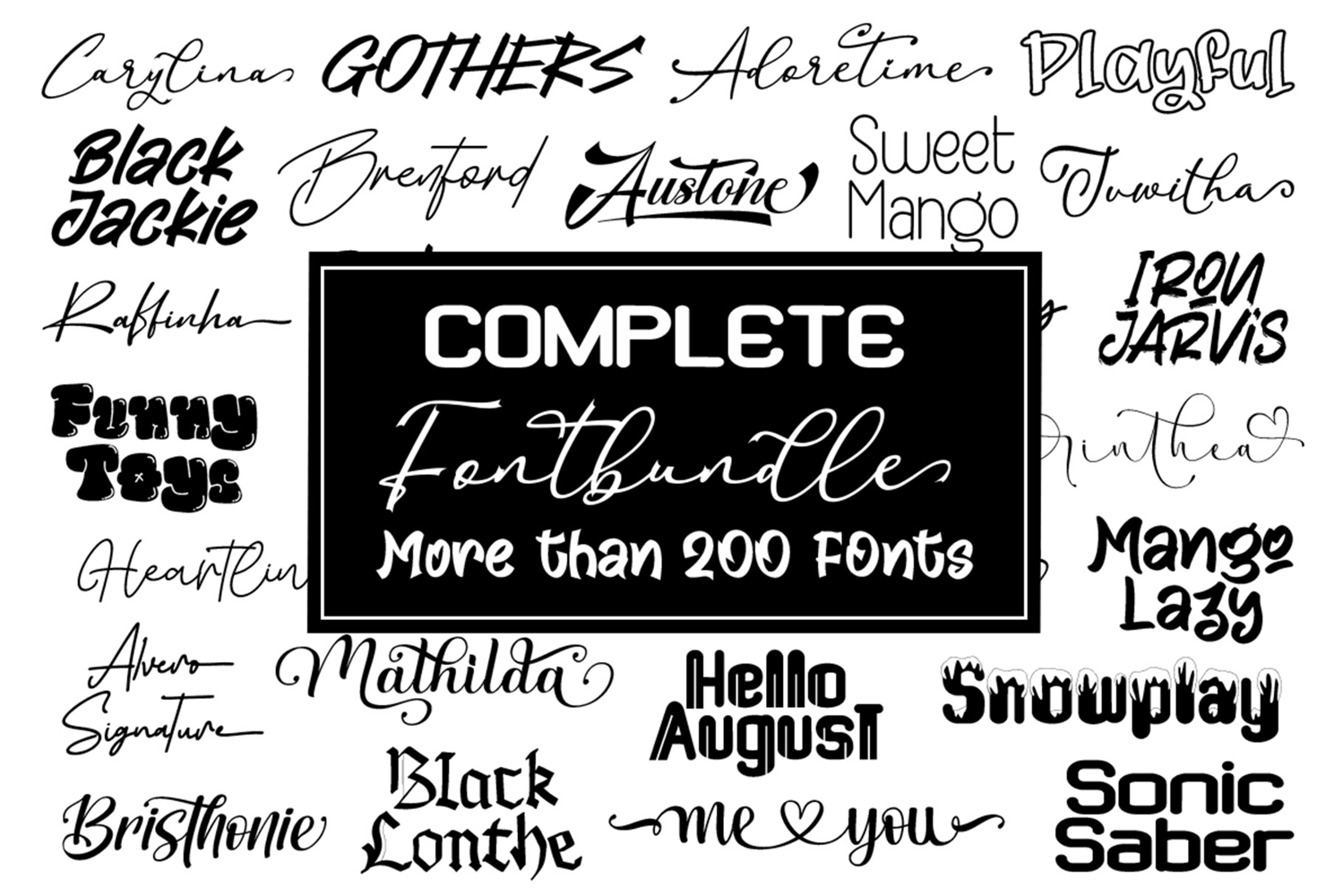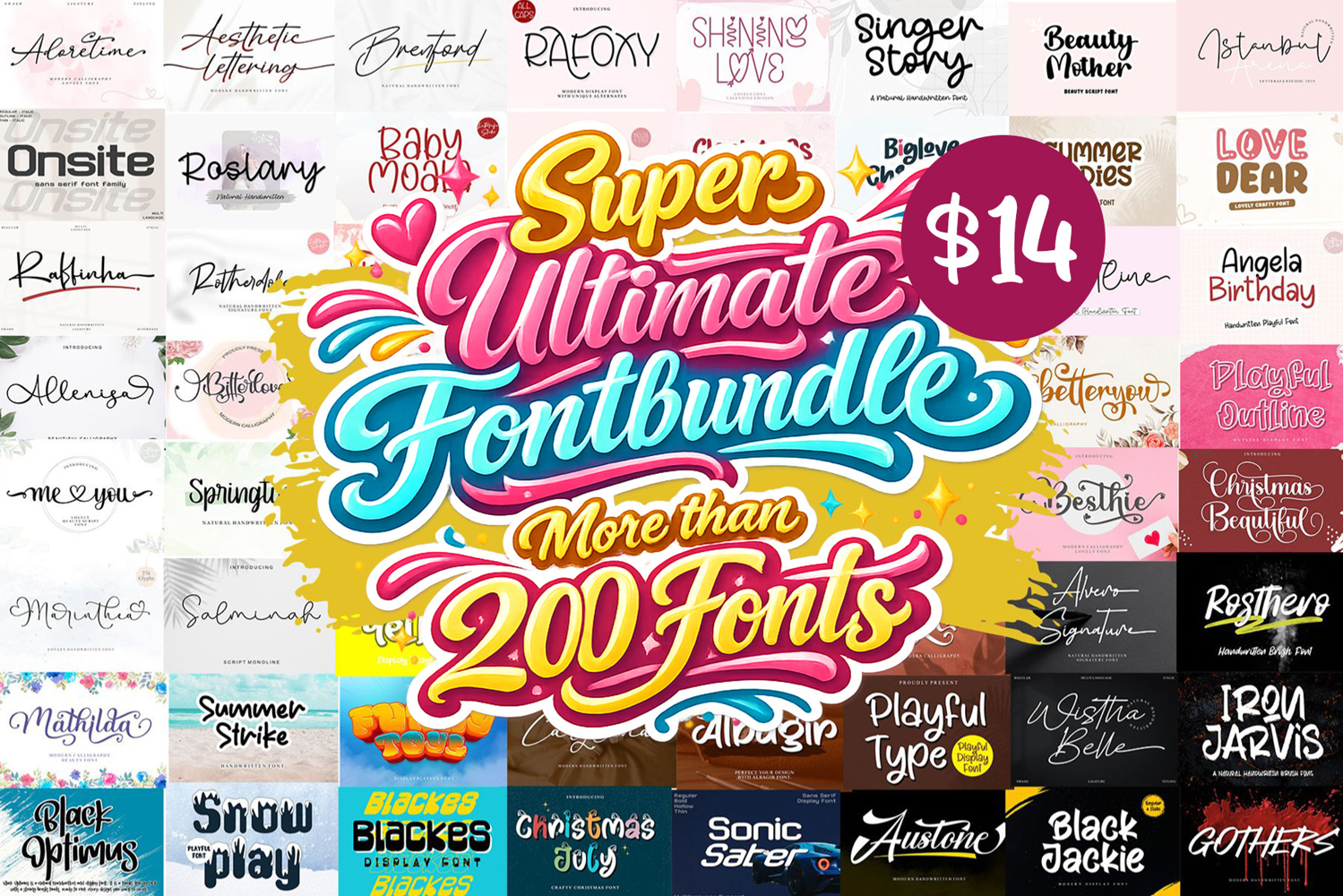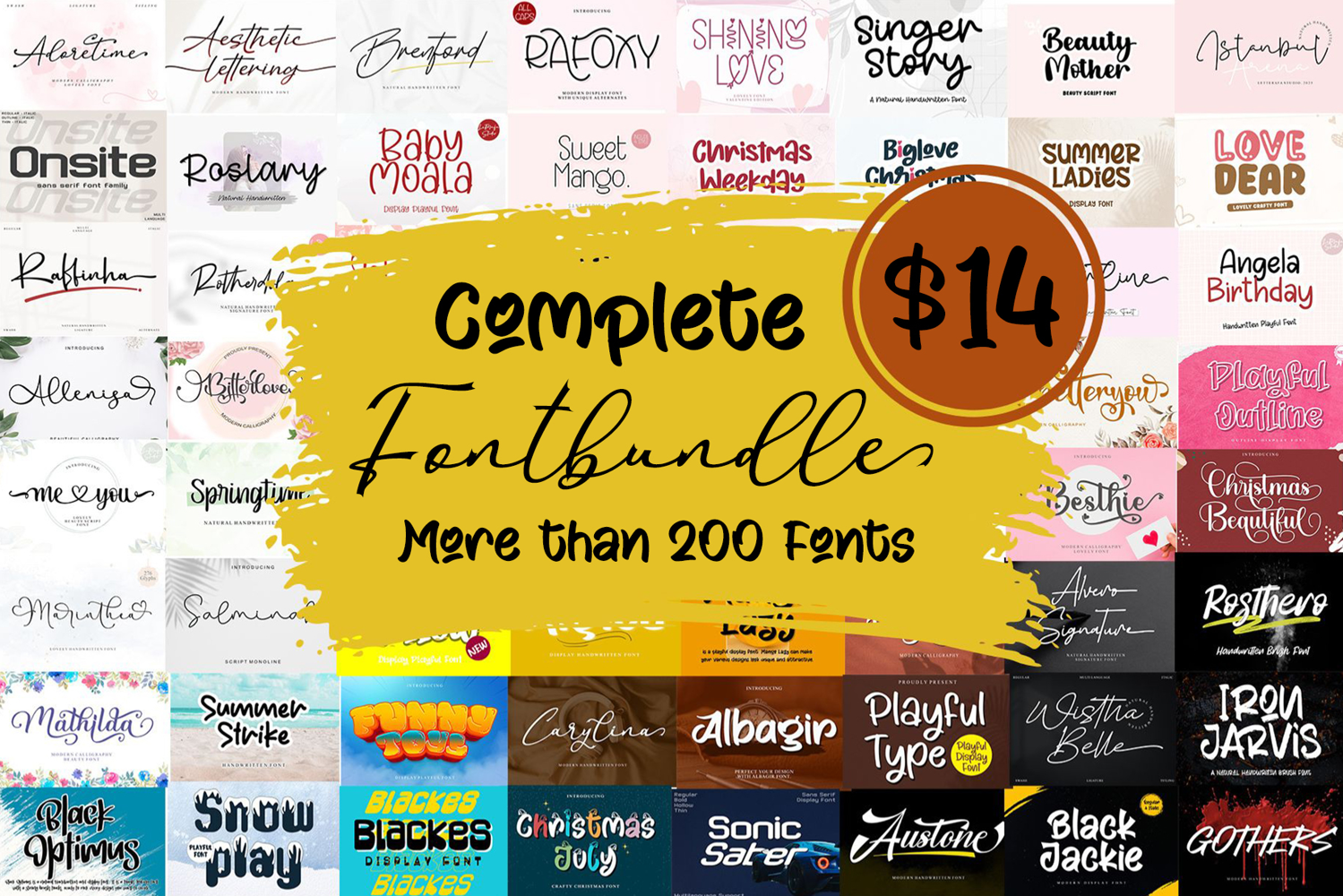
SUPER ULTIMATE FONTBUNDLE
The Super Ultimate Fontbundle comprises the full range of our professionally crafted typefaces, thoughtfully compiled into one comprehensive package. This exclusive bundle offers a wide variety of font styles—including serif, sans-serif, script, display, and handwritten designs—tailored to meet the diverse needs of branding, editorial, packaging, web, and creative design projects. Each font has been meticulously designed to ensure aesthetic consistency, technical precision, and optimal usability. Ideal for design professionals and agencies, making it a valuable and versatile resource for high-quality typographic solutions.
* Support multilingual; ä ö ü Ä Ö Ü ß ¿ ¡
* Numerals & Punctuation
* Alternate
* Swash
* Titling
* Lowercase and Uppercase